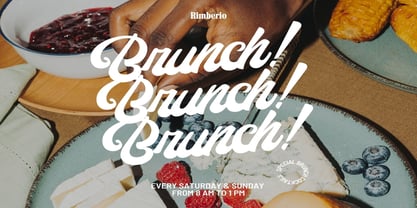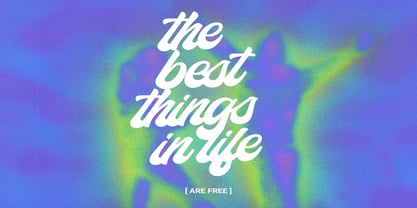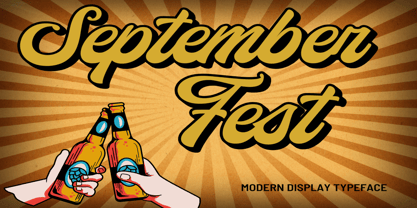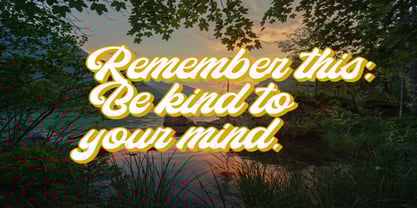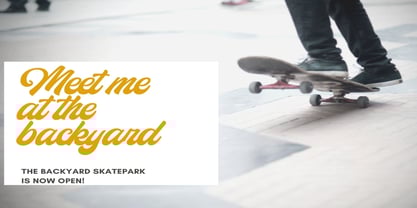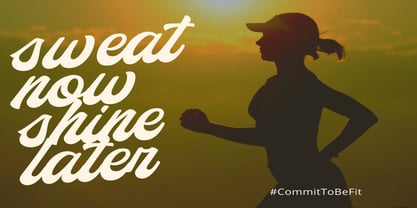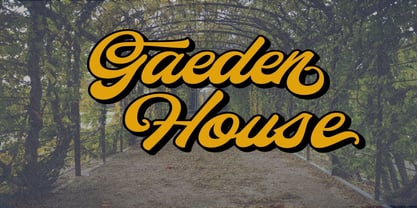
September fest
The September fest Font Family was designed by Tagir Safayev and published by Dream Font. September fest contains 1 styles. More about this family
September Fest is Inspired by Modern Vintage & Retro styles and a combination with old American traditional style.
September Fest allows you to create handwritten letters instantly and is very practical. Ideal for logos, handwritten quotes, product packaging, headers, posters, merchandise, social media & greeting cards.